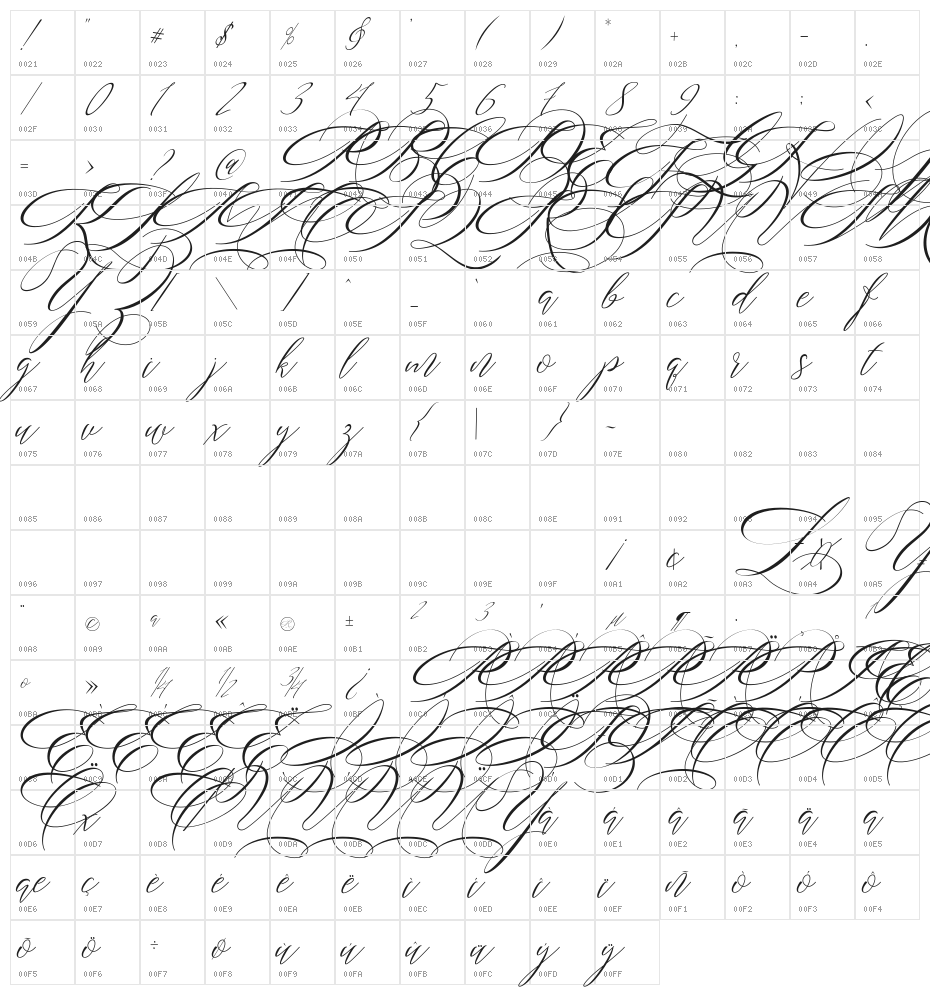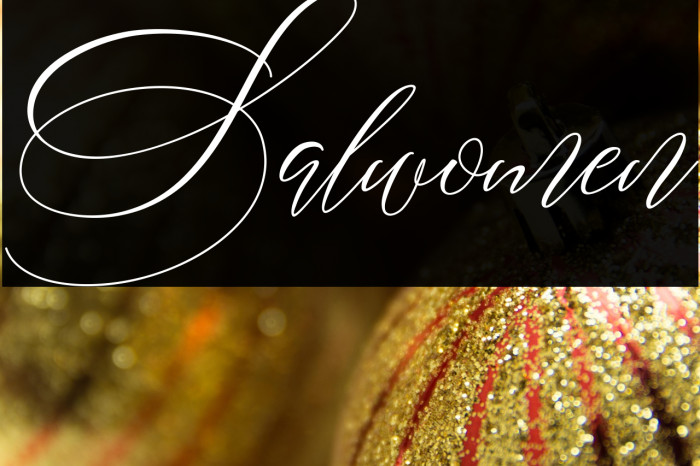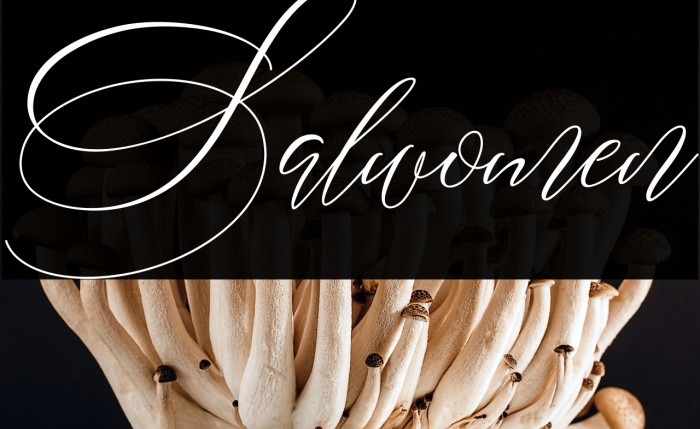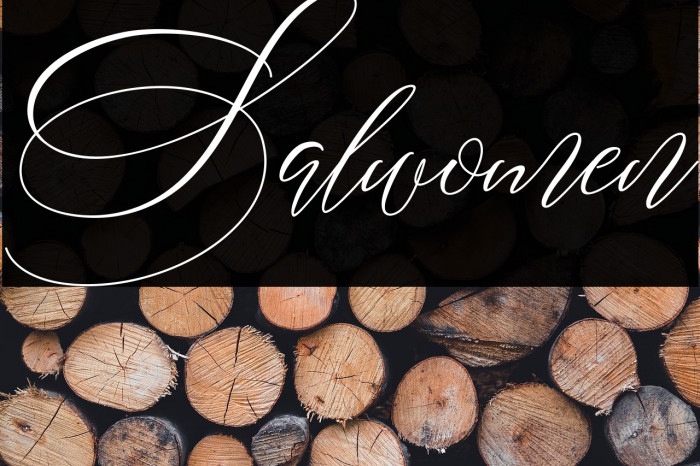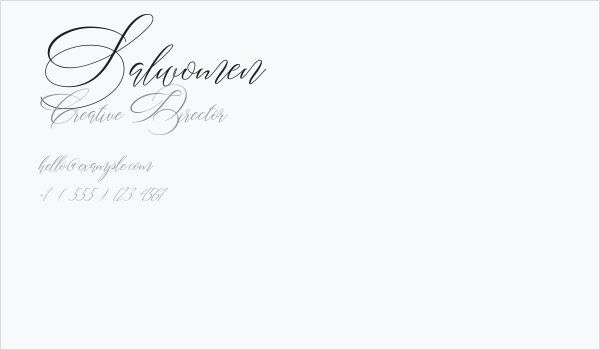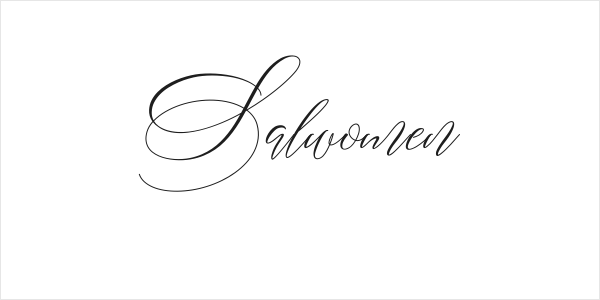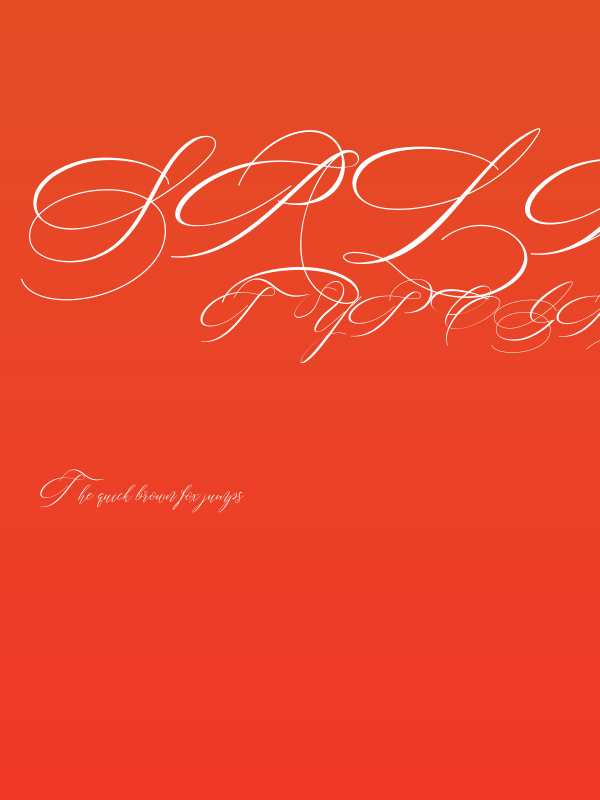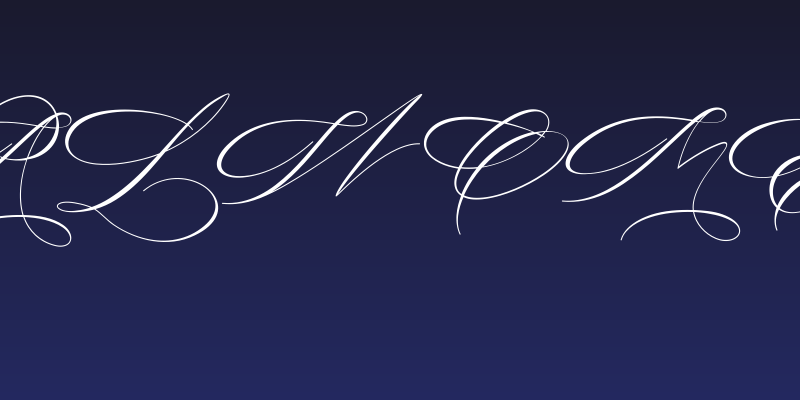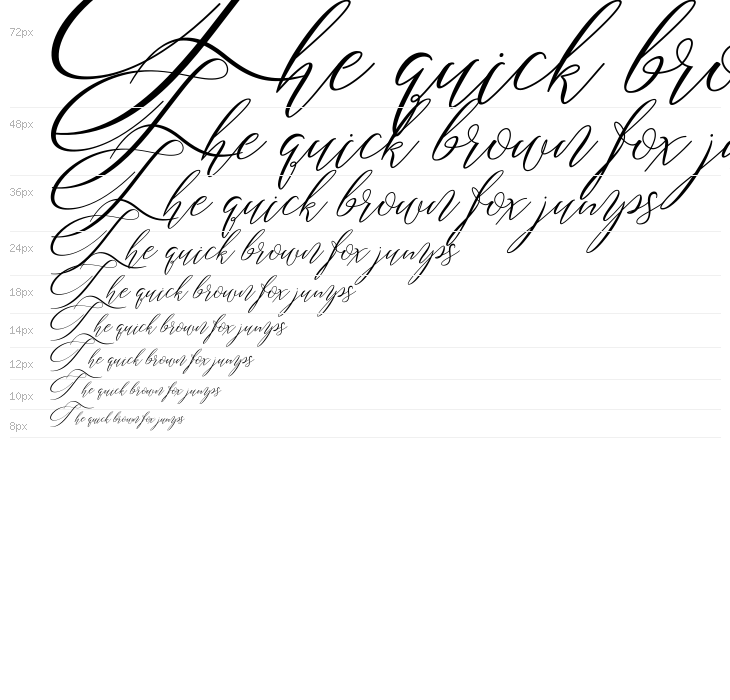
Salwomen Font
Salwomen Description
This elegant script font features a flowing, cursive style with intricate loops and swashes, giving it a sophisticated and artistic appearance. The uppercase letters are particularly ornate, with elaborate flourishes that extend beyond the baseline and cap height, creating a sense of movement and grace. The lowercase letters maintain a consistent slant and are slightly more restrained, offering a harmonious balance with the uppercase. The numerals and special characters are designed with the same attention to detail, ensuring a cohesive look across all glyphs. This font is perfect for projects that require a touch of elegance and refinement.